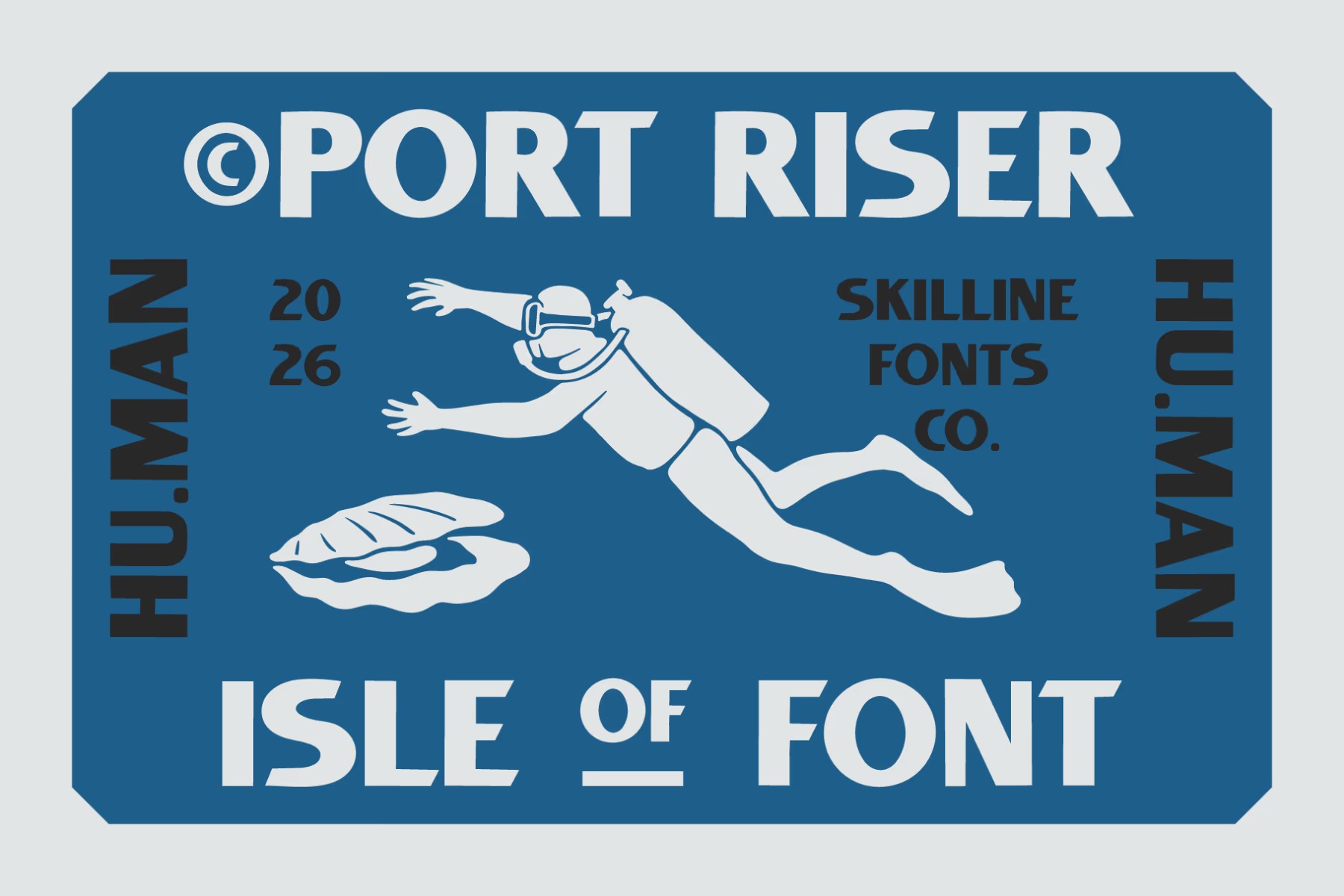
SFC Port Riser Font
SFC Port Riser Font is a clean and thoughtfully built typeface that works seamlessly for both professional branding and everyday creative uses. Inspired by the typography found across harbors and sailing culture, Port Riser is a display font designed with clarity and purpose. Its bold letterforms reflect maritime communication, simple, readable, and built to stand out from a distance. Perfect for identity design, labels, posters, and apparel with a nautical or coastal direction. Port Riser blends vintage influence with clean execution, making it suitable for both heritage-style branding and contemporary projects.